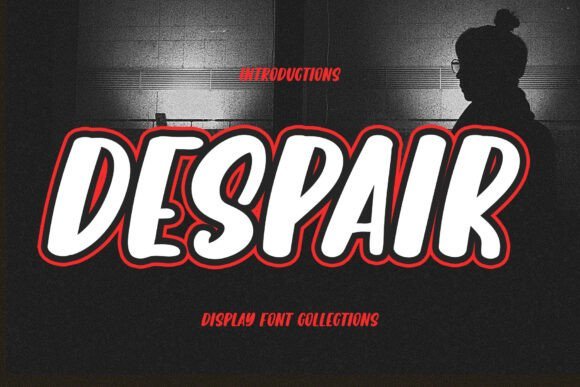
Find Your Perfect Script with Despair Font
Have you ever been stuck in front of a blank page, desperately trying to come up with the perfect phrase or quote to set the tone for your project? We’ve all been there. But what if you had the right tool to unlock your creativity and make your words truly shine?
Enter Despair Font, a stylish handwritten font that’s designed to bring a touch of timeless elegance to your projects. With its impeccable form and contemporary atmosphere, this font is the perfect addition to any design portfolio. Whether you’re a seasoned pro or just starting out, Despair Font is a valuable asset that will help you elevate your work and leave a lasting impression on your audience.
Despair Font Key Features
- Unique Character Set: The Despair Font features a unique character set that includes a wide range of symbols, icons, and glyphs, making it ideal for creating visually striking designs.
- Stylistic Alternates: The font includes stylistic alternates, which allow designers to add a touch of personality to their text, making it stand out from the crowd.
Designer Review: Despair Font
At first glance, the Despair Font might seem like an unconventional choice, but as I dove deeper into its features, I found some surprising strengths.
- The unique distressed aesthetic adds a touch of grunge to any design project.
- The font is highly versatile, working well for titles, headings, and even body text in certain contexts.
- Its irregularities create a sense of visual interest, drawing the viewer’s attention.
- The font’s distressed quality can sometimes make it difficult to read, especially for large blocks of text.
- The irregularities can also make it challenging to achieve perfect typographic alignment.
- The font’s overall feel can come across as a bit too edgy or attention-seeking, potentially overwhelming the message being conveyed.
Overall, the Despair Font is a solid choice for designers looking to add a touch of grit and rebellion to their work. While it may not be suitable for every project, its unique strengths make it a valuable addition to any design arsenal.
Tips for Getting the Most Out of the Despair Font
Use the Despair Font to add a touch of darkness and irony to your designs.
Combine it with bold, sans-serif fonts for a striking contrast.
Experiment with different font sizes and styles to create a sense of hierarchy and emphasis.
Use the Despair Font for:
Humorous and ironic designs.
Dark and moody art.
Satirical and critical commentary.
Alternatives to Despair Font for Designers
Fontin is a distressed sans-serif font that conveys a sense of wear and tear. It’s ideal for use in designs that require a vintage or retro feel, such as advertisements from the past or art deco-inspired posters. Fontin is similar to Despair Font in its distressed aesthetic, but it has a more subtle, nuanced look that won’t overwhelm the viewer.
Playfair Display is an elegant, high-end serif font that’s perfect for luxury brands or high-end products. It’s not a distressed font like Despair Font, but rather a sophisticated, refined choice that adds a touch of sophistication to any design. While it may not have the same edgy feel as Despair Font, it’s a great alternative for designers who want to create a sense of luxury and high-end quality.
Rockwell is a sturdy, classic serif font that’s often used in designs where a sense of reliability and trustworthiness is important. It’s a great choice for corporate identities, government agencies, or other organizations that need a font that conveys stability and dependability. While it’s not as distressed as Despair Font, Rockwell has a solid, dependable feel that’s perfect for designs that require a sense of seriousness.